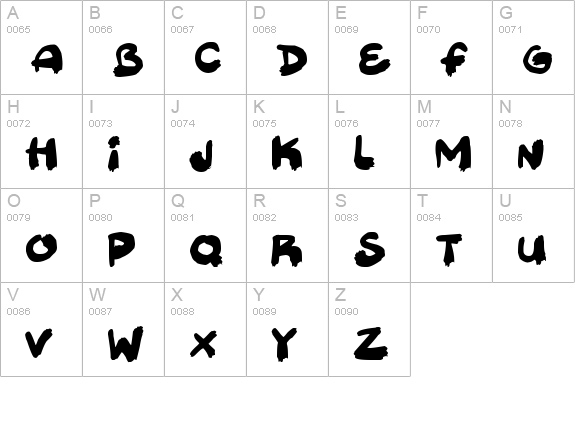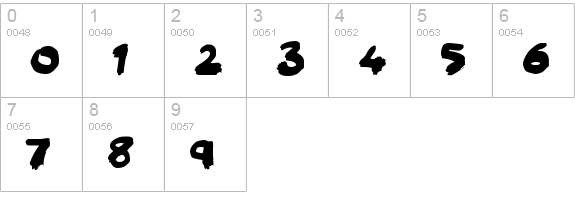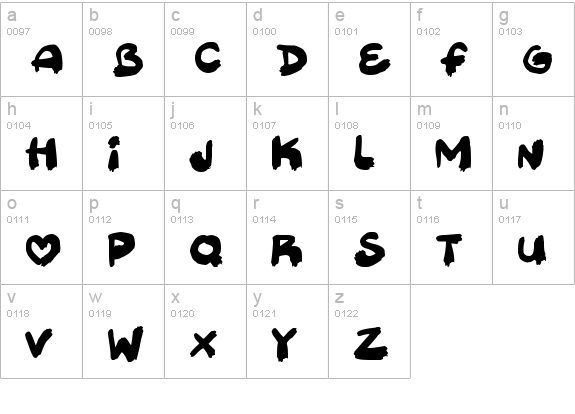
Sweetpaint Font Details
Sweetpaint is a free for personal use font in the Script > Brush category, designed by Darrell Flood. It has been downloaded 28 times and is available for Windows, Mac and Linux.
Sweetpaint font is a delightful and charming typeface that exudes a playful and whimsical vibe. Its soft curves and smooth lines give it a friendly and welcoming feel, making it perfect for projects that require a touch of sweetness and creativity. This font is ideal for a variety of design applications such as invitations, greeting cards, branding, and more.